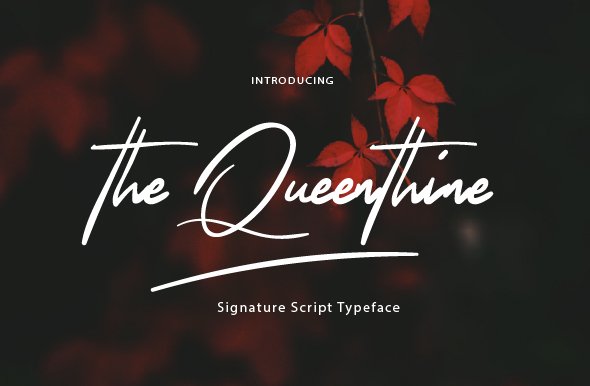
The Queenthine Signature Font
A modern signature typeface, If you are looking for a handwriting font, then it is! Introducing The Queenthine Font. The Queenthine is a beautiful signature typeface. It has an elegant style which is perfect for every design which want to emulate a signature. This font are perfect for wedding invitation or your blog. Also with their help, you can create a logo or beautiful frame for your home. Or just use for your small business, book covers, stationery, marketing, magazines and more.